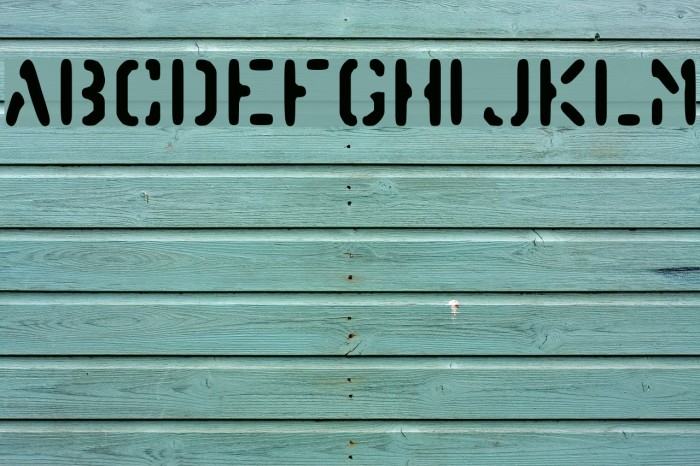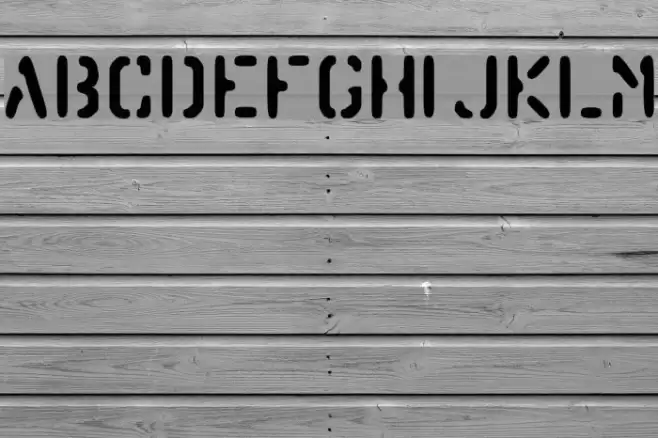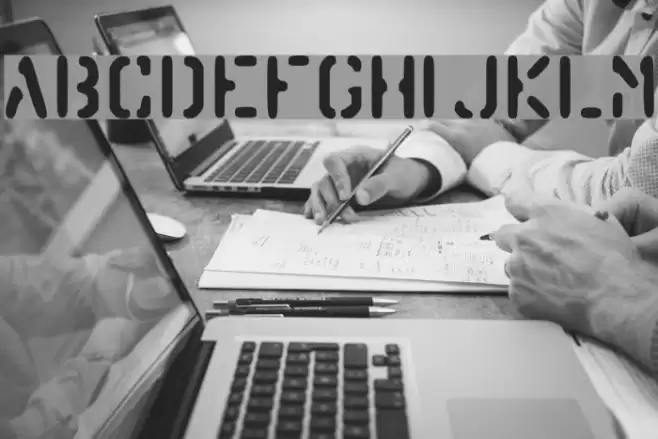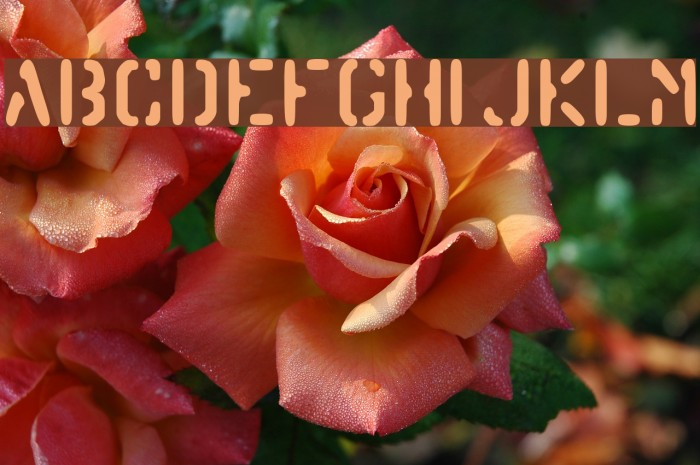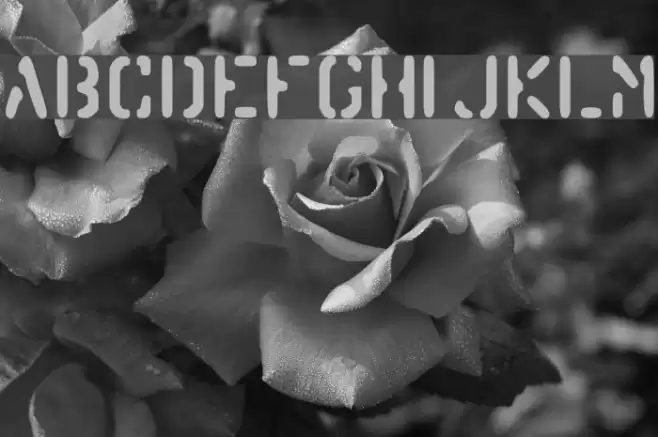
Barrel Font
Barrel Description
This font features a bold, stencil-like design with distinct cutouts that give it a rugged and industrial feel. The characters are uniformly thick, with rounded edges that soften the otherwise mechanical appearance. The uppercase and lowercase letters maintain a consistent style, ensuring readability while adding a unique flair. The numbers and special characters follow the same design principles, making them cohesive with the alphabet. This font's structured yet playful nature makes it suitable for various creative applications.
| Overall Style | Industrial, Modern |
| Proposed Projects | Ideal for branding, posters, packaging, and any project requiring a strong, industrial aesthetic. |